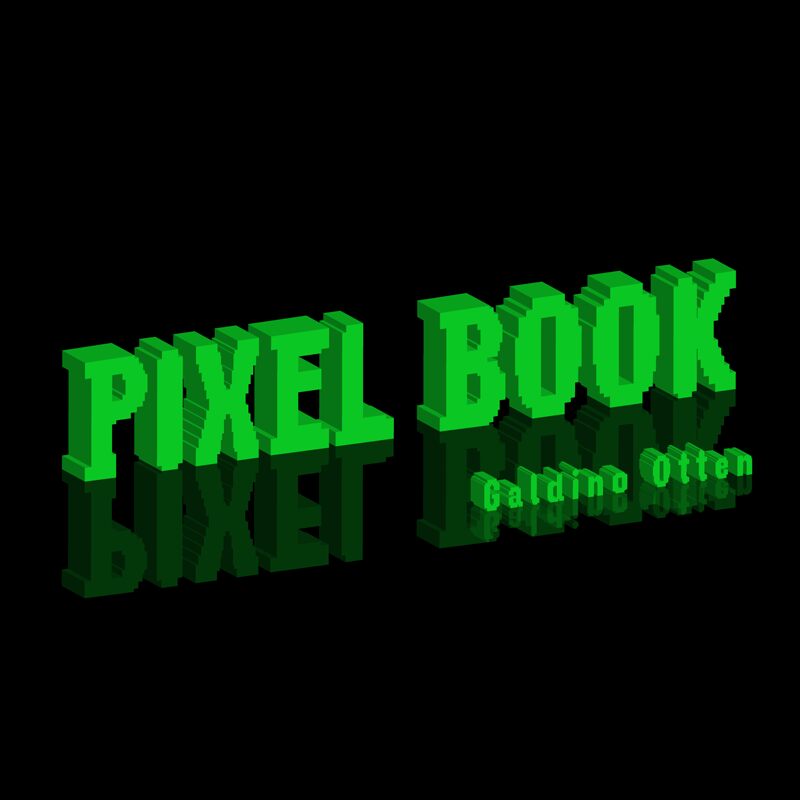
Pixel Book Out
Pixel Book Outlined is a bold display font designed by Galdino Otten. With its digital style and outlined design, this font is perfect for projects that require a futuristic and tech-savvy look.
Use it to create eye-catching logos, website headers, or posters for technology companies, gaming events, or sci-fi conventions. The bold weight of Pixel Book Outlined adds emphasis and makes a strong visual impact. Whether it's a digital magazine cover or an app interface, this font will bring a modern and edgy vibe to any design project.